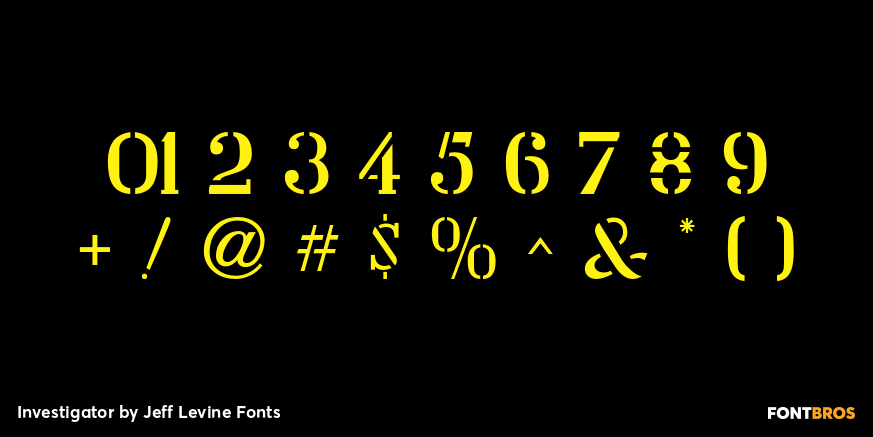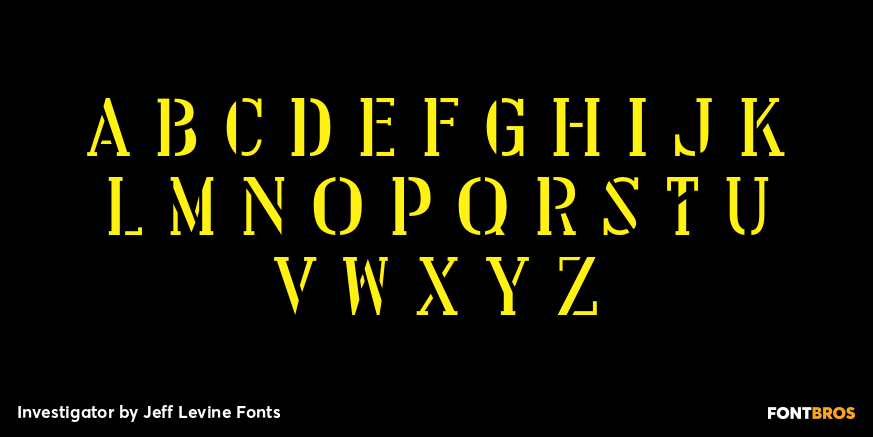
Investigator
Investigator JNL gives a serif treatment to Cold Case JNL, which was modeled from some old lettering stencils manufactured in the 1950s. Font Styles:
Investigator includes 213 glyphs.